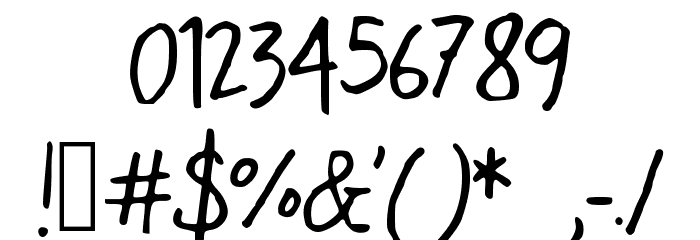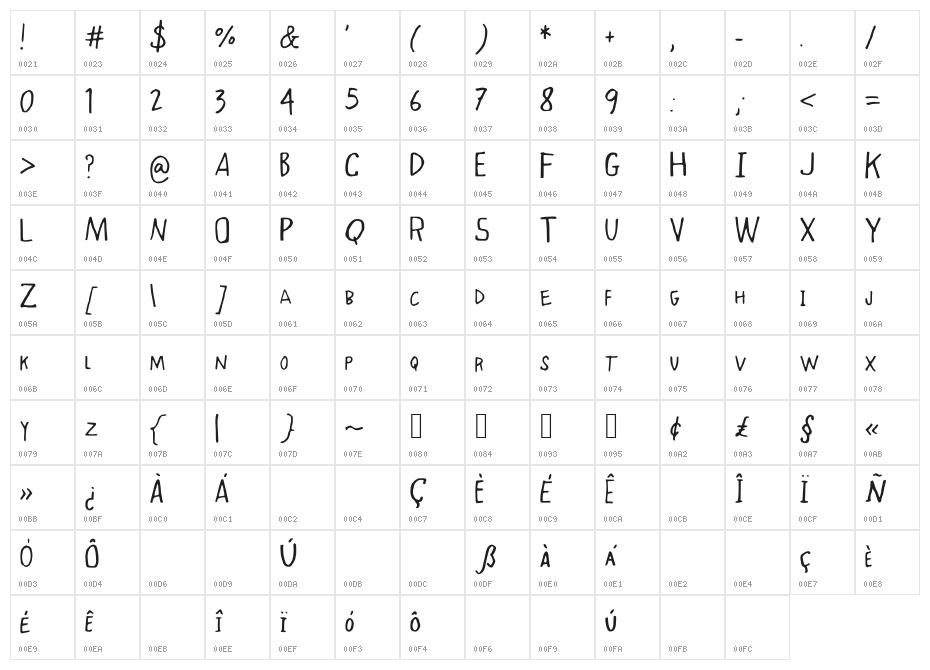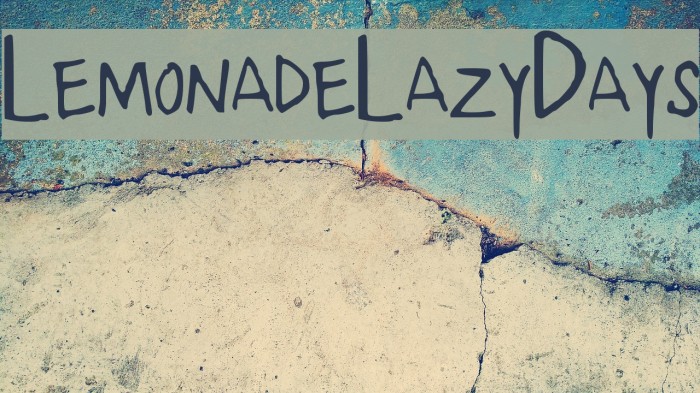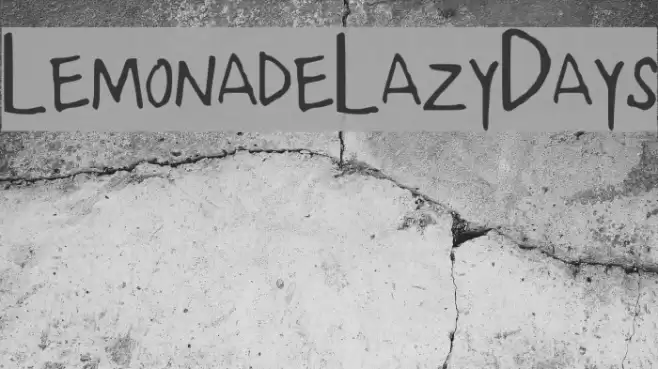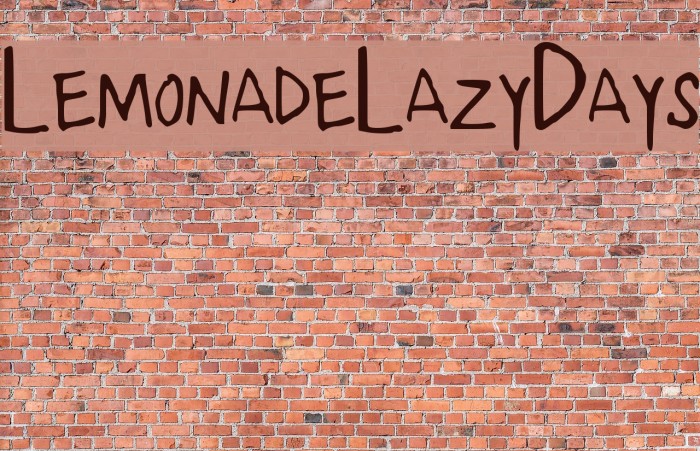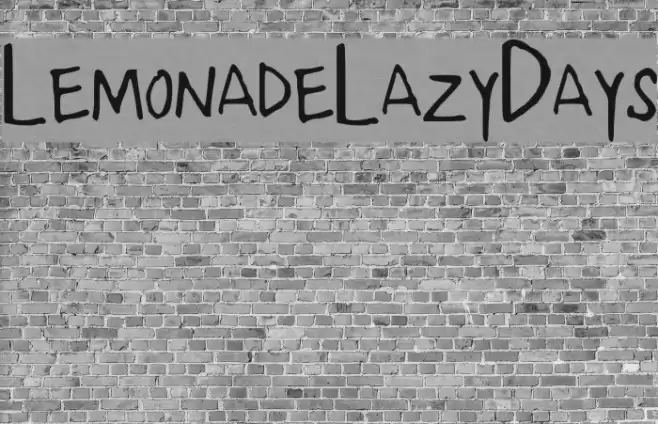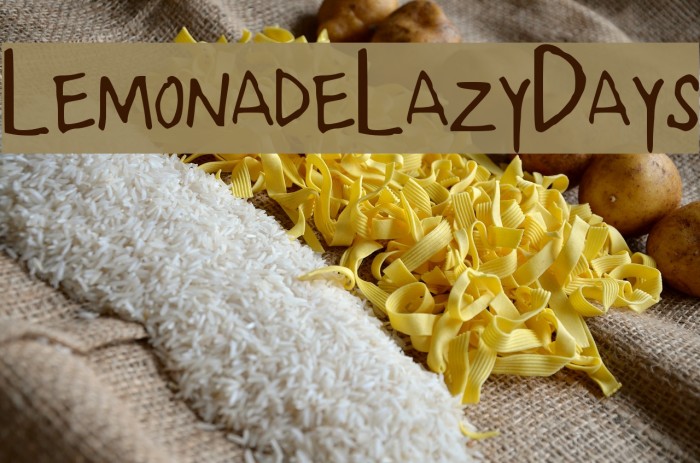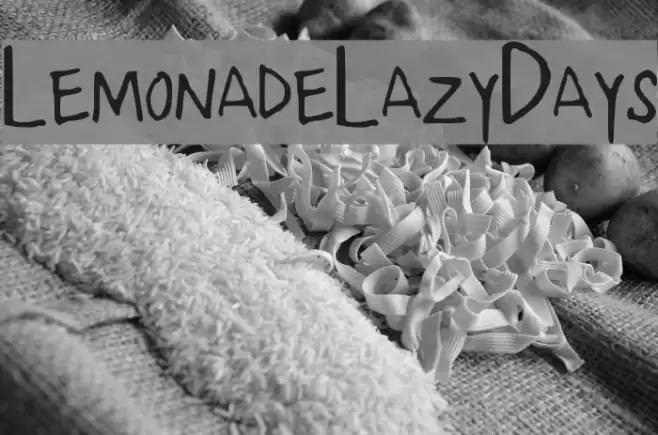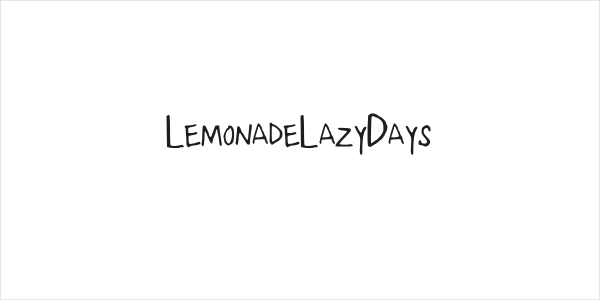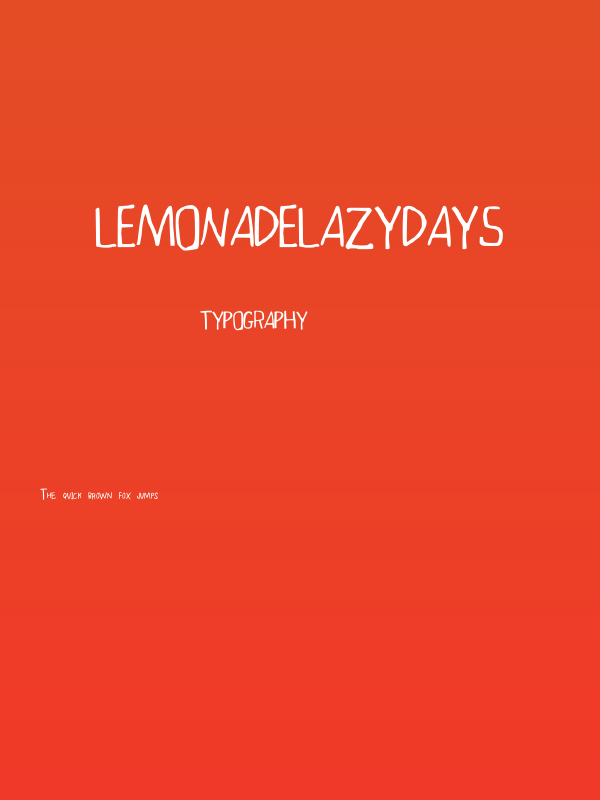
LemonadeLazyDays Font
LemonadeLazyDays Description
This font exudes a playful and casual vibe, characterized by its hand-drawn appearance. The letters have a slightly uneven baseline, giving it a whimsical and informal feel. The strokes are consistent in weight, providing a uniform look across all characters. The uppercase and lowercase letters maintain a cohesive style, with rounded edges and a friendly demeanor. The numerals and special characters follow the same design principles, ensuring a harmonious overall appearance. This font is ideal for projects that require a touch of personality and charm.
| Use Case | Headlines, Informal text, Branding |
| Proposed Projects | Perfect for children's books, greeting cards, casual branding, and playful social media graphics. |